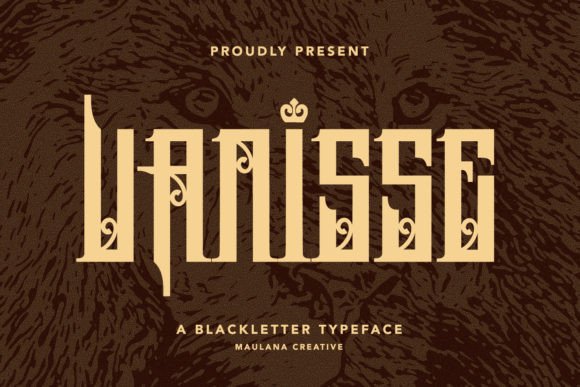
Presenting Vanisse Font - The Bold and Expressive Blackletter Masterpiece
In a digital realm filled with monotonous uniformity, where fonts often blend into a sea of sameness, Vanisse Font emerges as a beacon of originality, captivating the hearts of designers and typography enthusiasts alike. This extraordinary blackletter font, meticulously crafted by the skilled hands of Maulana Creative, is a testament to the transformative power of artistic expression.
From the moment you lay your eyes upon Vanisse Font, its bold and thick letters exude an aura of confidence and strength, demanding attention and leaving an indelible mark on the visual landscape. Unleash the boundless potential of this typographic gem, and watch as your creative projects metamorphose into stunning masterpieces that resonate with individuality and artistic flair.
Step into a world where words dance with grace and elegance, guided by the masterful strokes of Vanisse Font. Its unique letterforms, reminiscent of ancient manuscripts, evoke a sense of timeless sophistication, effortlessly elevating your designs to new heights of visual appeal. Allow your imagination to run wild as you explore the endless possibilities that await, knowing that Vanisse Font will faithfully translate your creative vision into a tangible reality.
With Vanisse Font as your artistic ally, you can effortlessly create designs that speak volumes, conveying messages with a depth and impact that leave your audience spellbound. Whether you're crafting logos that exude authority, posters that command attention, or invitations that radiate elegance, Vanisse Font stands ready to amplify your creative prowess and ignite a visual symphony that captivates and inspires.
But Vanisse Font's allure extends far beyond mere aesthetics. Its PUA encoding unlocks a treasure trove of glyphs and swashes, granting you the freedom to explore the full extent of your typographic artistry. Effortlessly incorporate intricate embellishments, flourishes, and ornaments, adding an extra layer of visual interest that sets your designs apart from the ordinary.